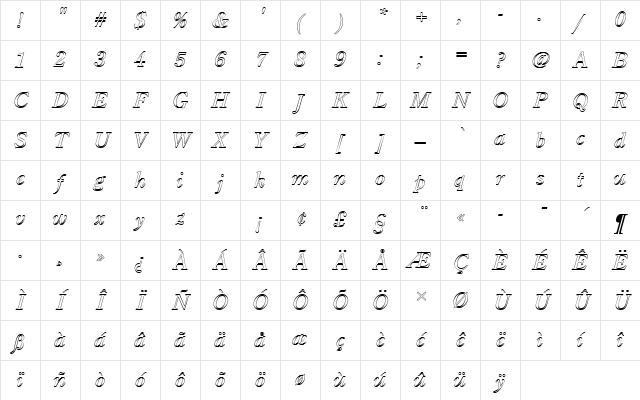
Complete CenturyOldStyTRegItaOu1 Regular glyph index. Displaying only characters natively supported by CenturyOldStyTRegItaOu1 Regular font.
CenturyOldStyTRegItaOu1 is a composed and adaptable typeface that performs quietly and consistently across a wide range of design contexts.